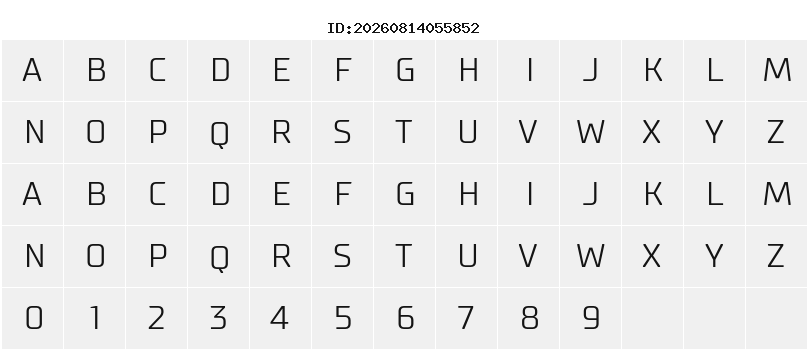
Supermolot Light Preview
• Font Name: Supermolot Light
• Designer: Roman Ershov, Jovanny Lemonad
• Manufacturer: Typetype
About Supermolot Light.otf
Supermolot Light.otf is a modern, elegant sans-serif font designed for ultimate readability and visual harmony. Perfect for branding, headlines, web design, and print materials.